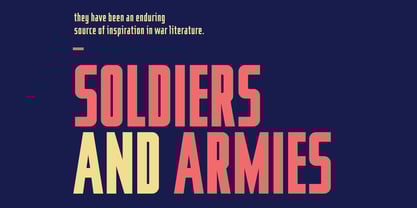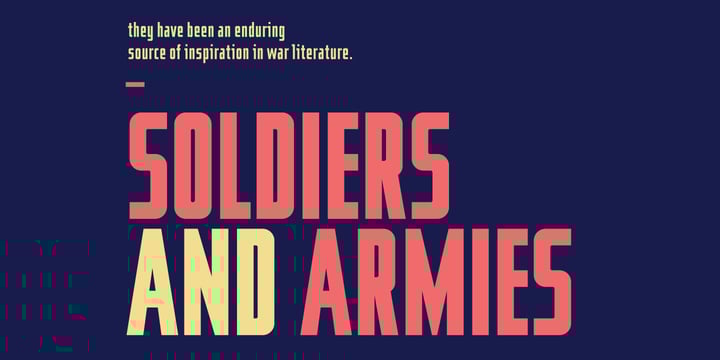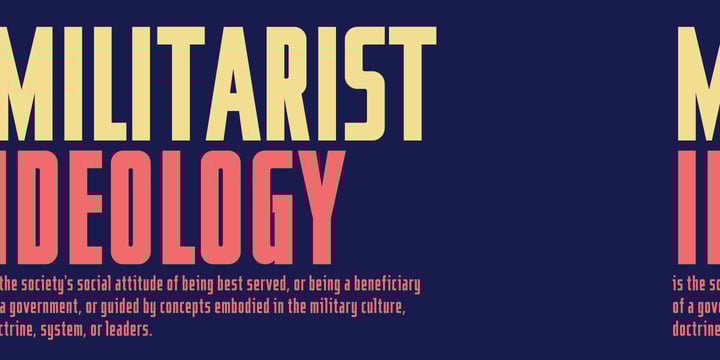
YWFT Jute
by YouWorkForThem
YWFT Jute Font Family was designed by published by YouWorkForThem. YWFT Jute contains 3 styles and family package options.
About YWFT Jute Font Family
YWFT Jute is a masculine, military, sans-serif design that was realized through a series of revisions to another typeface design called Flier. The constant reworking of Flier gave it a completely different look and feel, and thus was YWFT Jute forged. YWFT Jute is sharp, rigid and vicious, making for a striking solution when you need some seriously arresting headlines or short body text. YWFT Jute was converted to Opentype format in 2010.